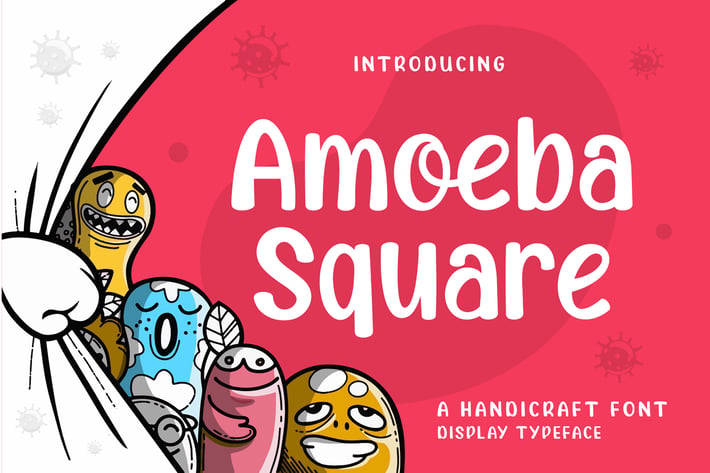
Amoeba Square - Handcraft Display Font
Discover Amoeba Square, a playful and charming display font that brings a handcrafted, natural feel to your designs. Its unique, irregular shapes create a fun and inviting look. At the same time, the letters stay neat and easy to read. Because of this, it works wonderfully for many creative projects.
This font is perfect for children’s products, branding, food packaging, menus, and labels. In addition, it shines in holiday-themed designs, school projects, advertisements, and logos. With Amoeba Square, you can add warmth and personality to almost any visual project.
Playful, friendly style that appeals to all ages
Handcrafted, natural look with irregular shapes
Ideal for kids’ products, food packaging, and menus
Great choice for branding, labels, holidays, and school projects
Eye-catching but highly readable design
Because Amoeba Square offers a handmade touch without losing professionalism, it suits graphic designers, small business owners, and content creators alike. Whether you want a warm logo or a fun advertisement, this font helps your work stand out.